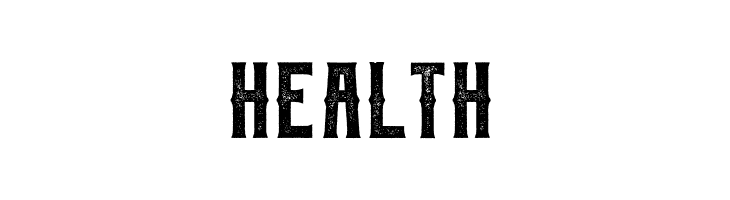
A bold, Western-style font with strong serifs and a rugged appearance.
A bold, distressed slab serif font with a vintage Western aesthetic.
( 7NTypes - Situjuh Nazara - 7ntypes.com )